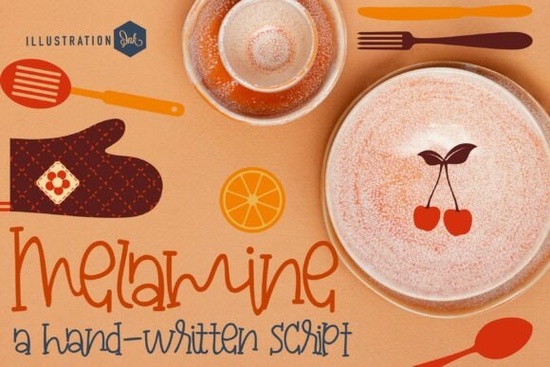
Looking for a font that brings a touch of nostalgia and charm to your designs? The Melamine Font is perfect for anyone who wants to add a warm, handmade feel to their projects. Whether you're creating bakery logos, menu designs, or packaging for a small business, this typeface offers a unique blend of retro and modern styles. Its playful cursive style makes it ideal for a variety of creative applications, especially in the food and craft industries.
The Melamine Font stands out with its slender, handwritten characters and distinctive loop-de-loop crossbars. These details give it a casual, friendly vibe that feels like it belongs on a vintage recipe card or a cozy kitchen label. The font’s high-seated ascenders and retro cadence make it easy to read while still maintaining a fun, artistic edge. It's a great choice for designers looking to add personality to their work without sacrificing clarity.
What Makes Melamine Unique?
Melamine isn’t just another script font it’s designed with a specific personality in mind. Its lighthearted, handmade posture gives it a warm and inviting feel, making it perfect for brands that want to feel approachable and authentic. This font works well in both digital and print formats, which means it can be used for everything from social media posts to product labels.
One of the key features of Melamine is its versatility. It can be used in a wide range of applications, including but not limited to:
- Bakery and café logos
- Culinary packaging and labels
- Custom menus and signage
- Social media headlines and banners
- Textile designs for aprons or kitchenware
Its retro-inspired style makes it a popular choice for indie businesses and small-scale creators who want to express their brand’s identity through typography.
How to Use Melamine in Your Projects
When using Melamine, it’s important to consider how it will fit into your overall design. Because it’s a script font, it works best when used sparingly. You don’t want to overwhelm your audience with too much text in this style. Instead, use it for headings, titles, or short phrases that need a personal touch.
For best results, pair it with a simpler, sans-serif font for body text. This contrast helps guide the reader’s eye and keeps the design balanced. You can also experiment with different sizes and weights to see what looks best in your layout.
Each of these fonts has its own unique qualities, so it’s worth experimenting to find the one that fits your project best. You can browse through the collection by visiting the Melamine Font page or checking out other related categories.
For more inspiration, you can also look up specific fonts on Creative Fabrica using the search feature. Try searching for “Melamine Font” or “script font” to find similar options. If you’re interested in seeing how others have used this font, you can explore examples by clicking on the Rainy Winter Font page or other related links.
Remember, the right font can make a big difference in how your design is perceived. Whether you're designing for a small business, a craft project, or a personal endeavor, taking the time to choose the right typeface can help you create something truly special.
If you're ready to try the Melamine Font, visit the Aaksaraan Rouleur Font page to explore more options. You can also check out the Love Islan Font for a different style that may suit your needs. Don’t forget to check out the Like Magic Font for a fun, expressive alternative.
Before finalizing your design, take a moment to review your work. Make sure the font is legible, the spacing is correct, and the overall look matches your vision. With a little care and attention, you can create something that feels both professional and personal.
Ready to bring a touch of mid-century charm to your next project? Start by downloading the Melamine Font and experimenting with how it can enhance your designs. Whether you're a designer, a crafter, or a small business owner, this font offers a fresh and creative way to express your brand.
- Test it in different design contexts
- Pair it with a complementary font for balance
- Use it for headings or short phrases
- Review your design for readability and visual appeal